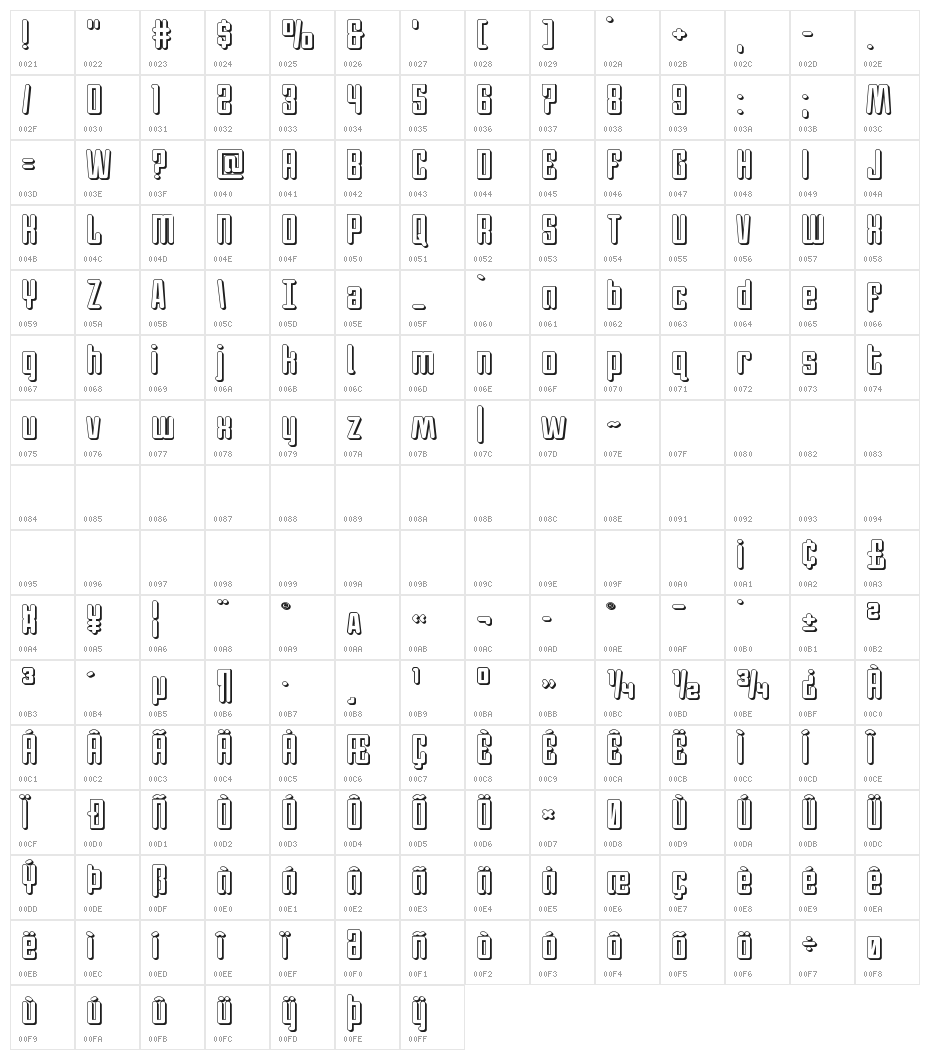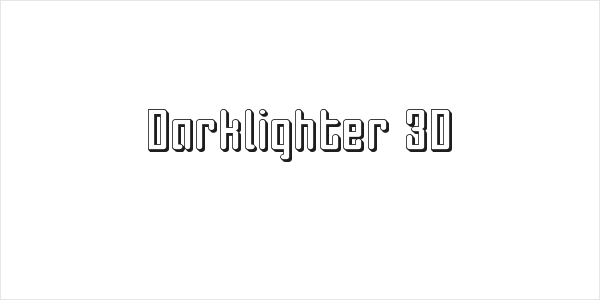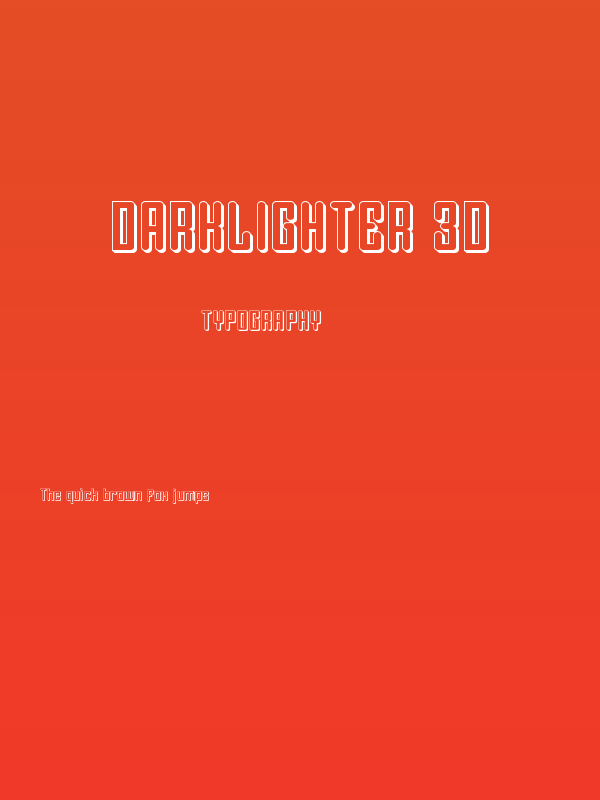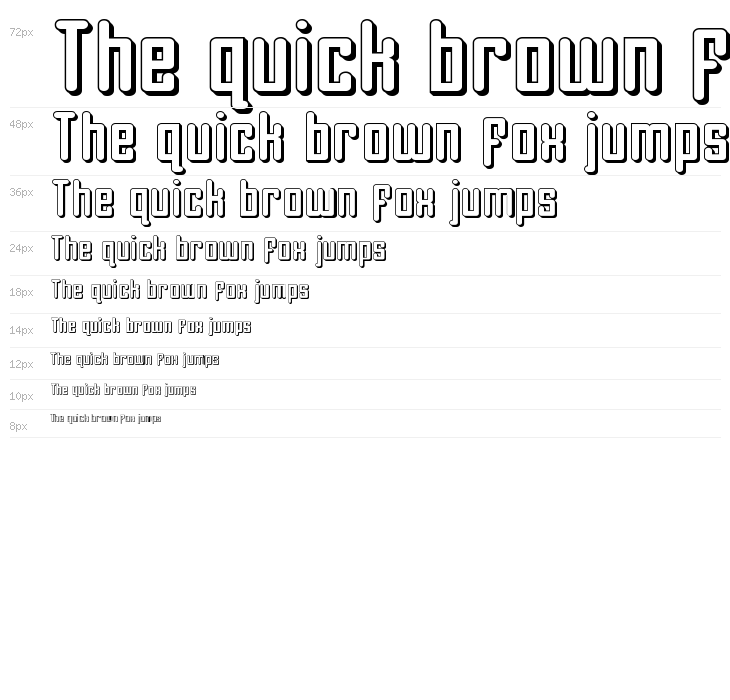
Darklighter 3D Font
Darklighter 3D Description
This font features a bold, three-dimensional appearance with a distinct outline that gives each character a shadowed effect. The uppercase and lowercase letters maintain a consistent geometric structure, providing a modern and futuristic look. The numerals and special characters follow the same design principles, ensuring uniformity across all glyphs. The font's style is eye-catching and ideal for projects that require a strong visual impact.
Proposed ProjectsIdeal for headlines, posters, and branding materials that require a striking and modern aesthetic.